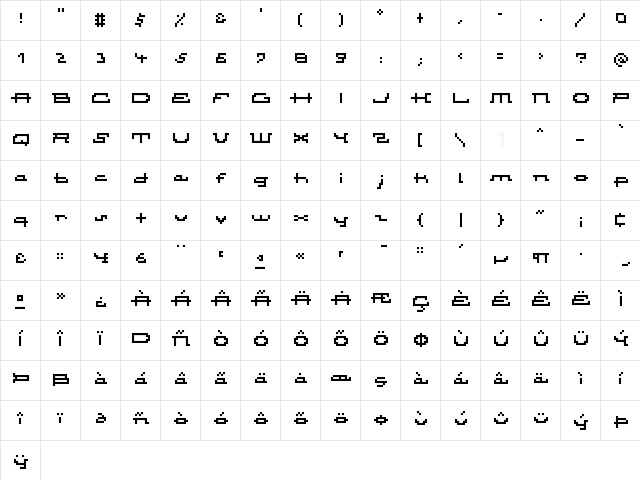
AtomicInline Medium
Design Context for AtomicInline Typeface
AtomicInline is built around its visual character rather than neutral utility — its distinctive forms are designed to make an impression at display sizes.
Font Pairing: Pair with a clean neutral sans-serif for body copy to let AtomicInline's character lead without overwhelming the composition.
Pro Tip: Use AtomicInline exclusively at display sizes — it was designed to be seen, not read at length. Let a neutral companion handle body copy.